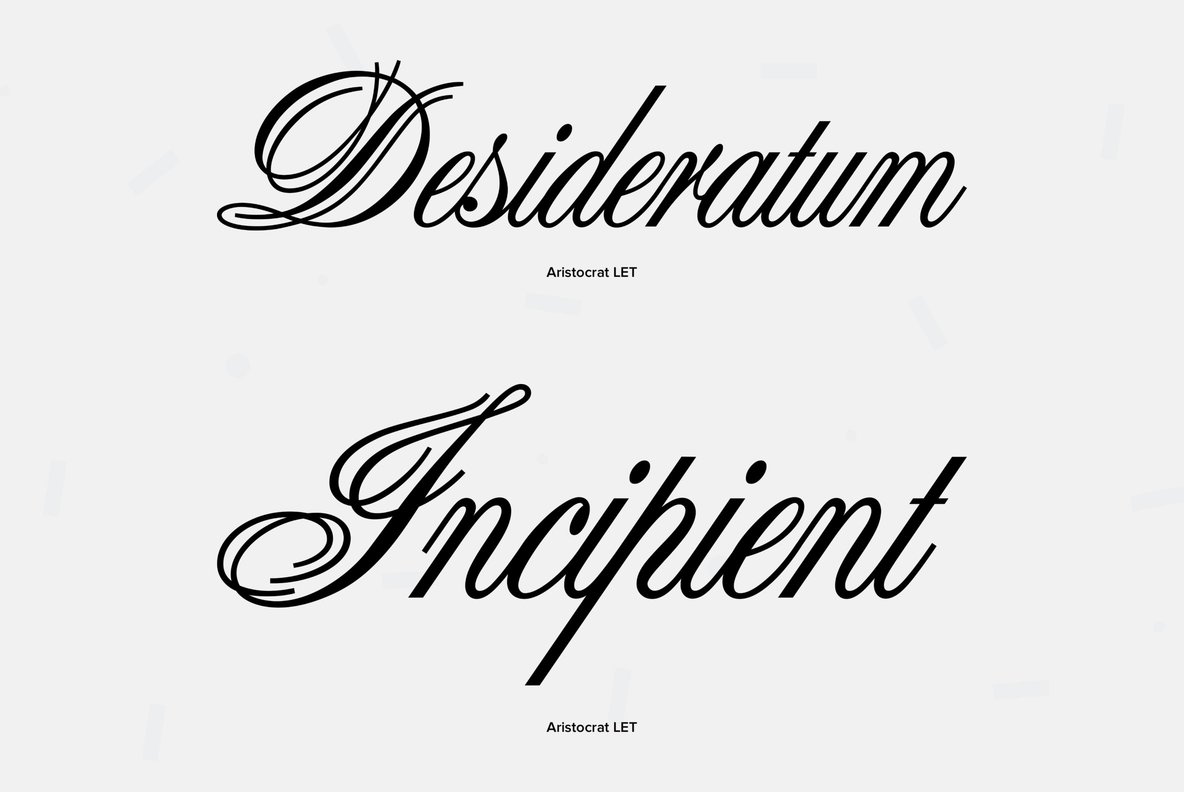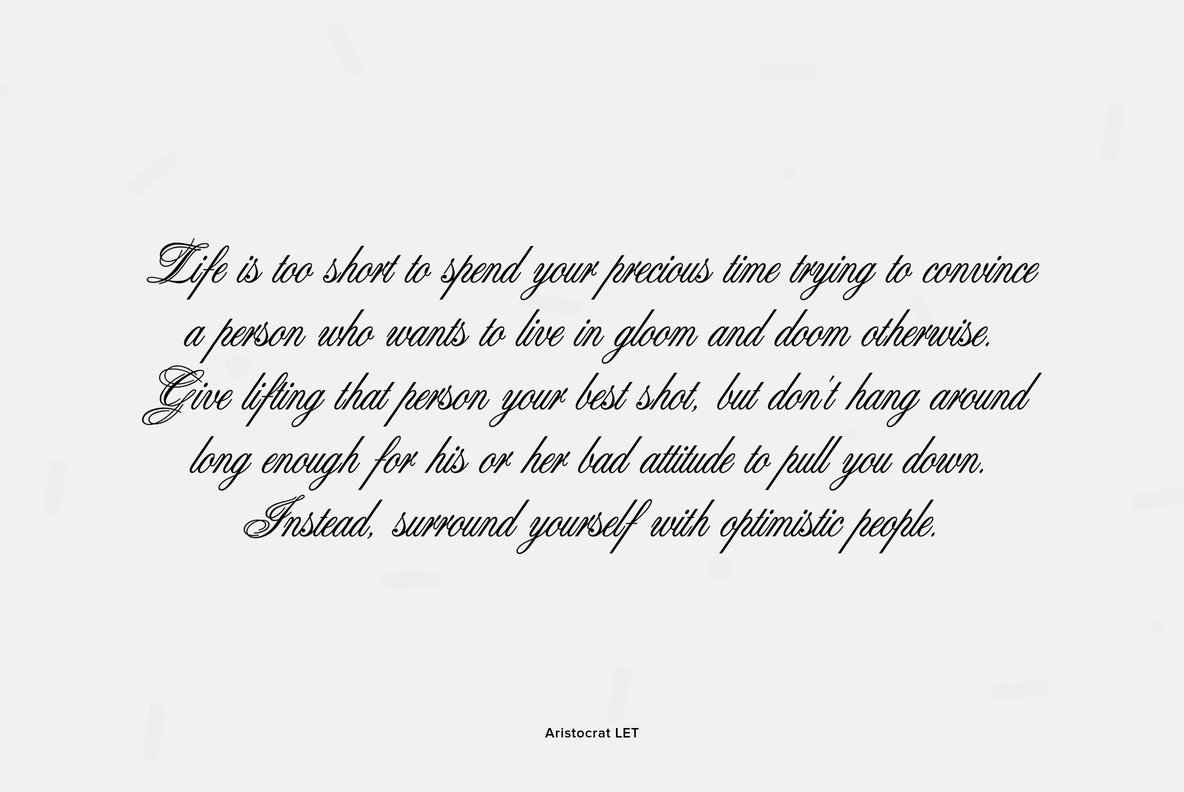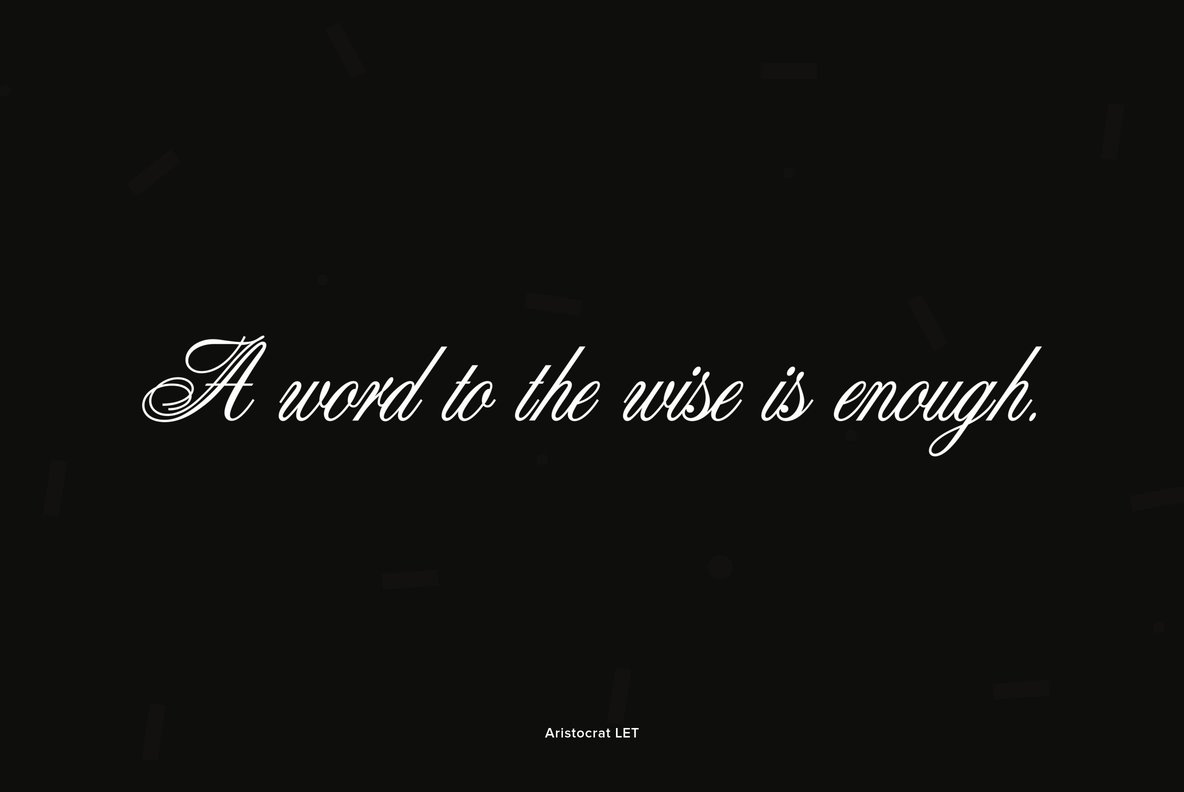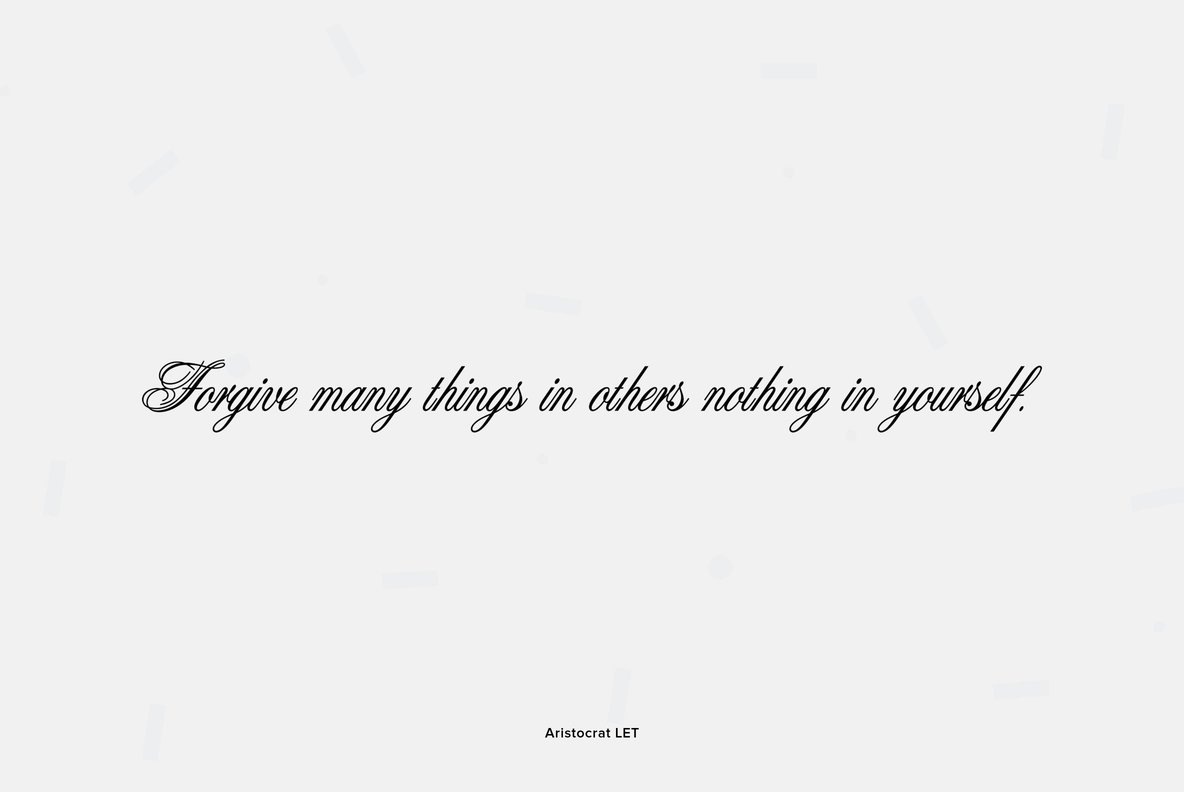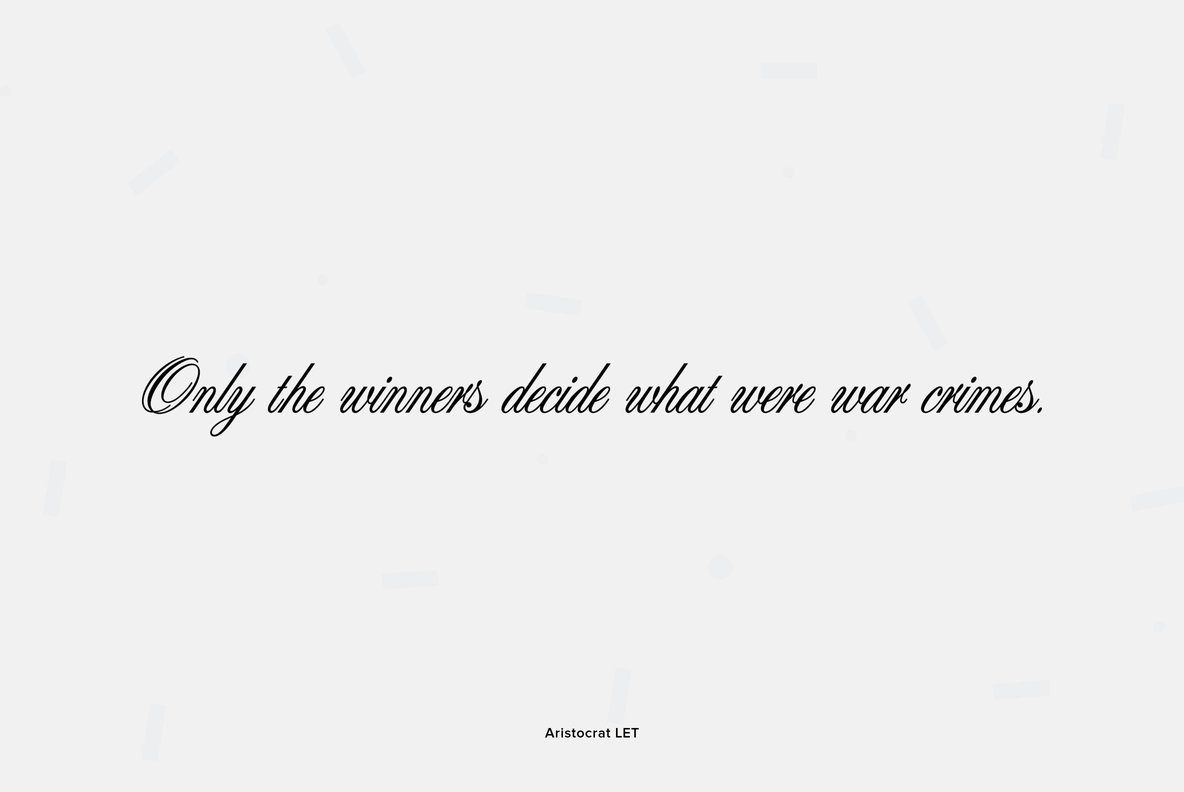
Aristocrat
This magnificent script is aptly named for its distinctive aristocratic appearance. The elegant initial capitals set off a refined lowercase that has been expertly kerned, allowing the letters to join in true copperplate fashion. An ideal choice for citations, diplomas and certificates of all sorts. Created by British designer, Donald Stevens.